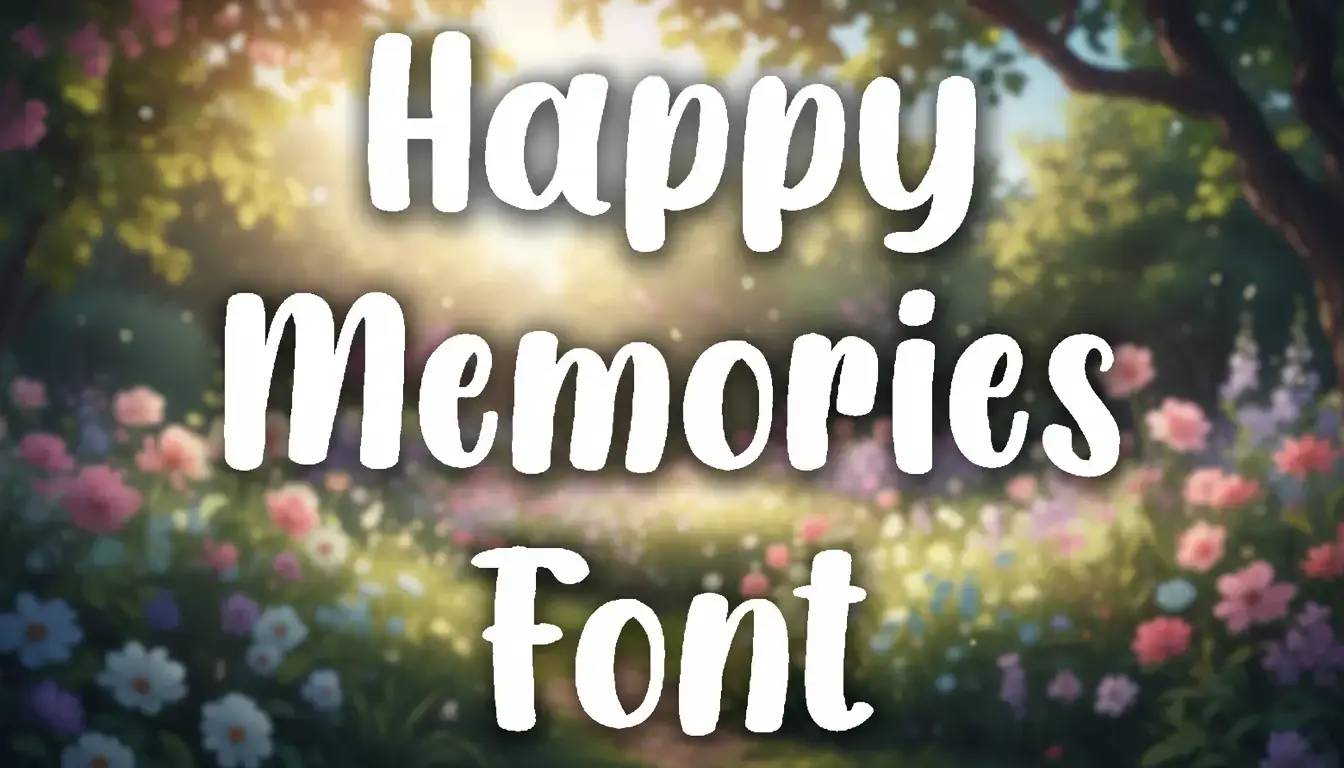
Happy Memories Font
Happy Memories is a fancy font made by Jefri Dwi Alfatah. It's a decorative display font with plenty of personality, made to grab attention. It's a free download, and you can try it with your own text in the preview above first.
You get every letter from A to Z in both cases and all the numbers from 0 to 9, which means Happy Memories can handle full sentences, dates and prices. Common punctuation such as &, !, ? and @ is included as well. It also has the accented letters you need for Spanish, French, German, Portuguese and Italian.
Think of Happy Memories for posters, logos and eye-catching headlines. Use it for one standout word or headline and let simpler fonts handle the rest.
Yes. Happy Memories includes the accented letters needed for Spanish, French, German, Portuguese and Italian, so it works for more than just English.